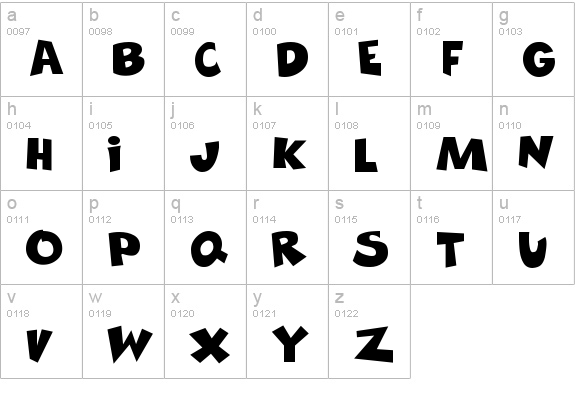
Smurfs Regular is the standard, neutral variant in the Smurfs typeface family \xE2\x80\x94 well suited to general body text, paragraphs, and standard typographic work.
Smurfs Regular font is a charming and playful typeface that brings a touch of whimsy to any design project. With its rounded edges and friendly appearance, this font is perfect for creating fun and engaging designs. Whether you're working on a children's book, a greeting card, or a social media graphic, Smurfs Regular font will add a delightful and lighthearted touch to your work.